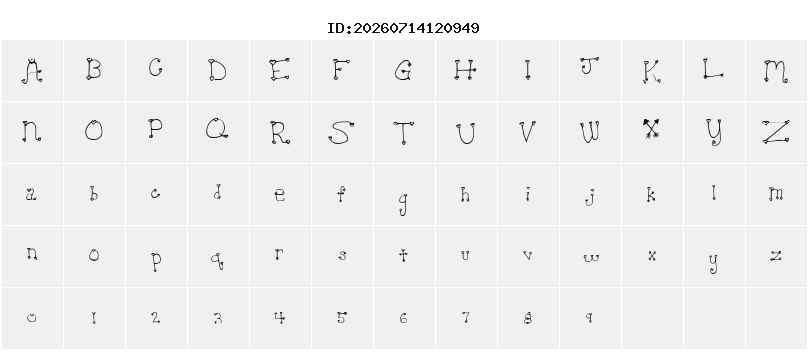
• Font Name: Heartache Teen Crush
• Designer: Jennifer Heinicke, Fonts-A-Go-Go
• Description: Heartache Teen Crush A full alphabet with numbers and most punctuation. This font is suitable for love letters to 'N-Sync and Hanson.